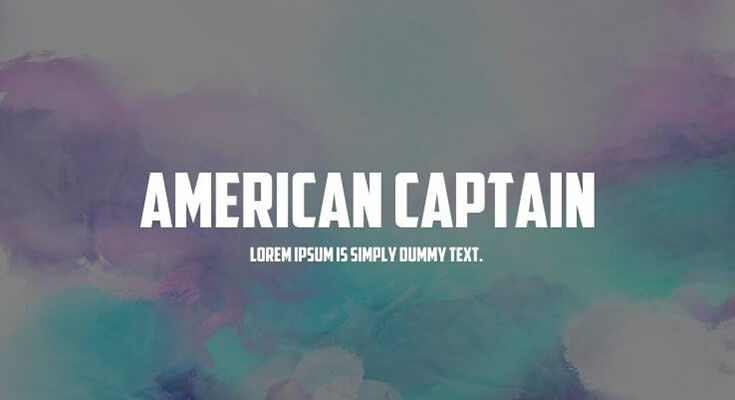
American Captain Font is a fancy display typeface. It has a strong, bold look that is perfect for making headlines and statements.
It was made by designer Michael G. Adkins in 2010. The font was modified and published in 2011 under the copyright ownership of The Fontry.
The typeface is narrow and bold, sharp and blunt, heavy and tall. But what makes it unique is its originality. At least until the 1940s, it has been revived and refined by sign painters, hand letterers, and font designers.
It is available in a 5-font family with full language support for Central European characters, Cyrillic, Greek, and Hebrew. OpenType features include small caps, fractions, stylistic sets, and more.
Font Name: | American Captain Font Family |
Style: | Sans Serif, Display, Typeface |
Font Designer: | Michael G. Adkins |
This font has been highlighted on many different platforms like titles, headings, designs, poster designs, and social media post designs for each field. It is also suitable for bold and unique graphics.
These typefaces are suitable for web designing and social designing purposes.